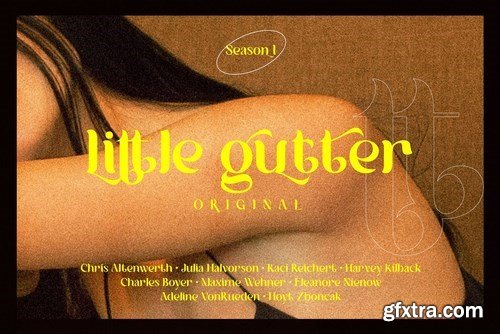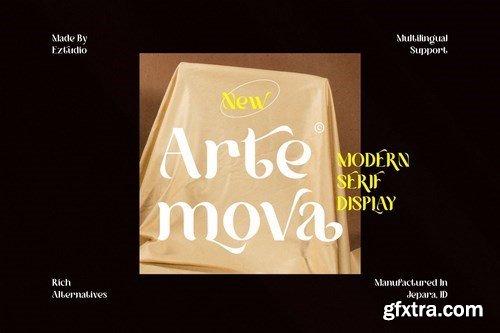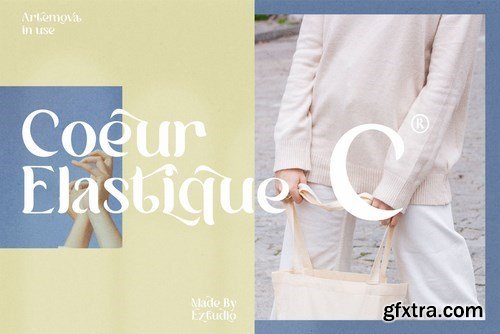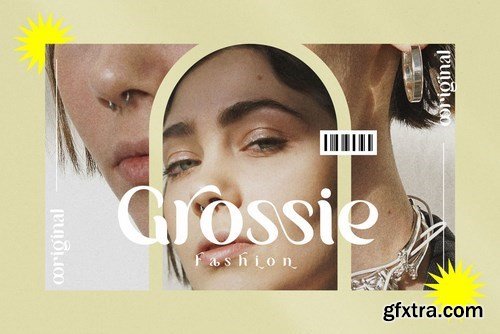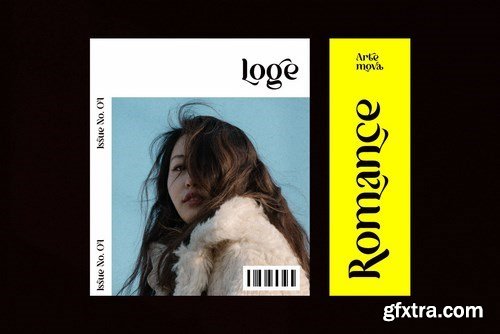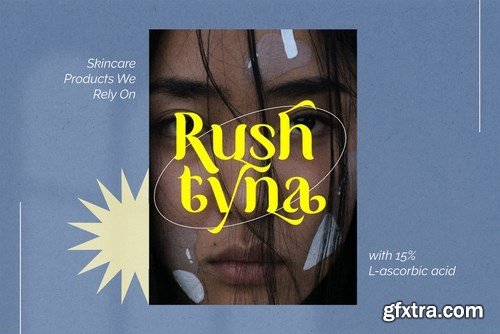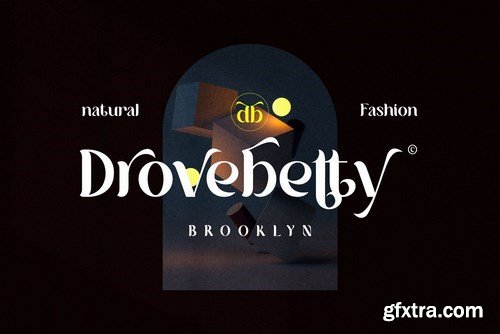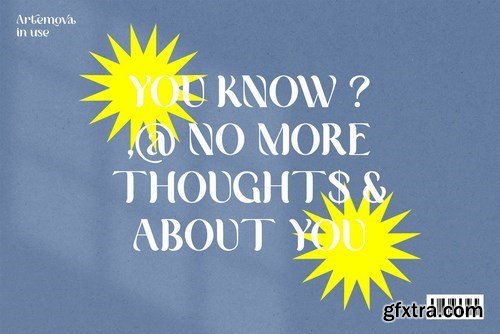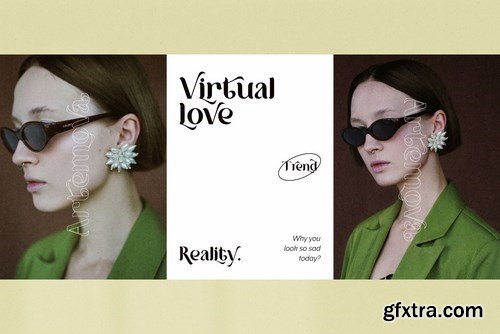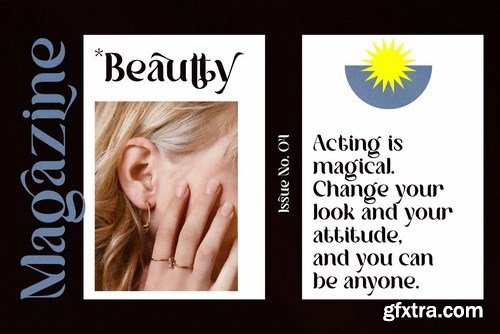
Artemova is a new fresh & modern serif, this font includes uppercase letters, lowercase letters, numerals, alternatives, ligatures & a large range of punctuation. Modern & classy look. This font is suitable for designs such as magazines, posters, greeting cards, branding materials, business cards, quotes, posters, and more!